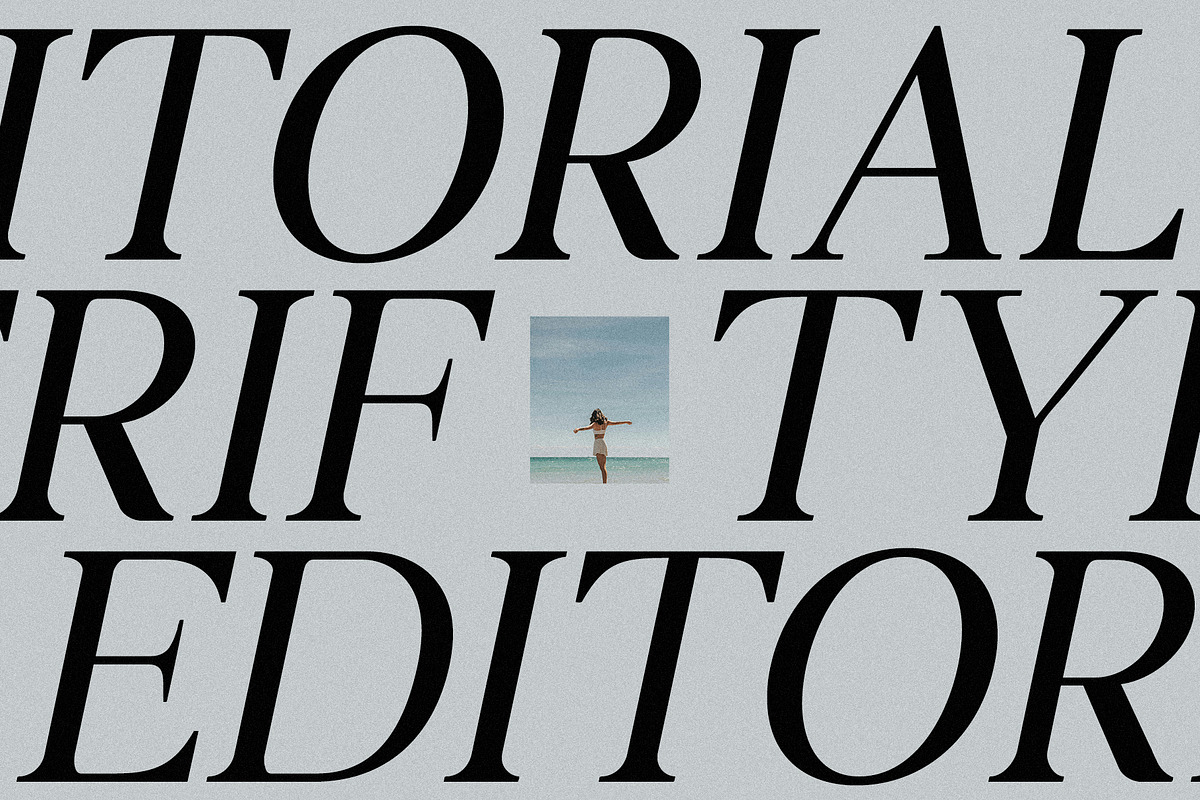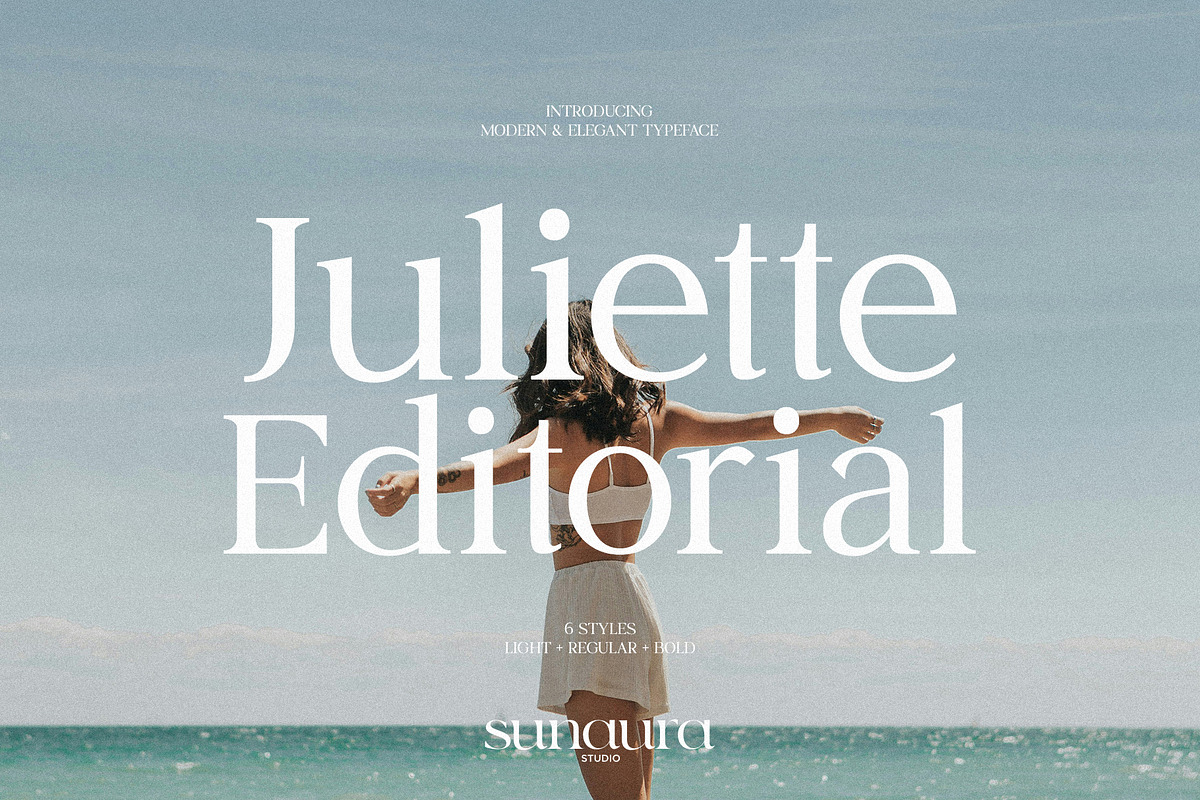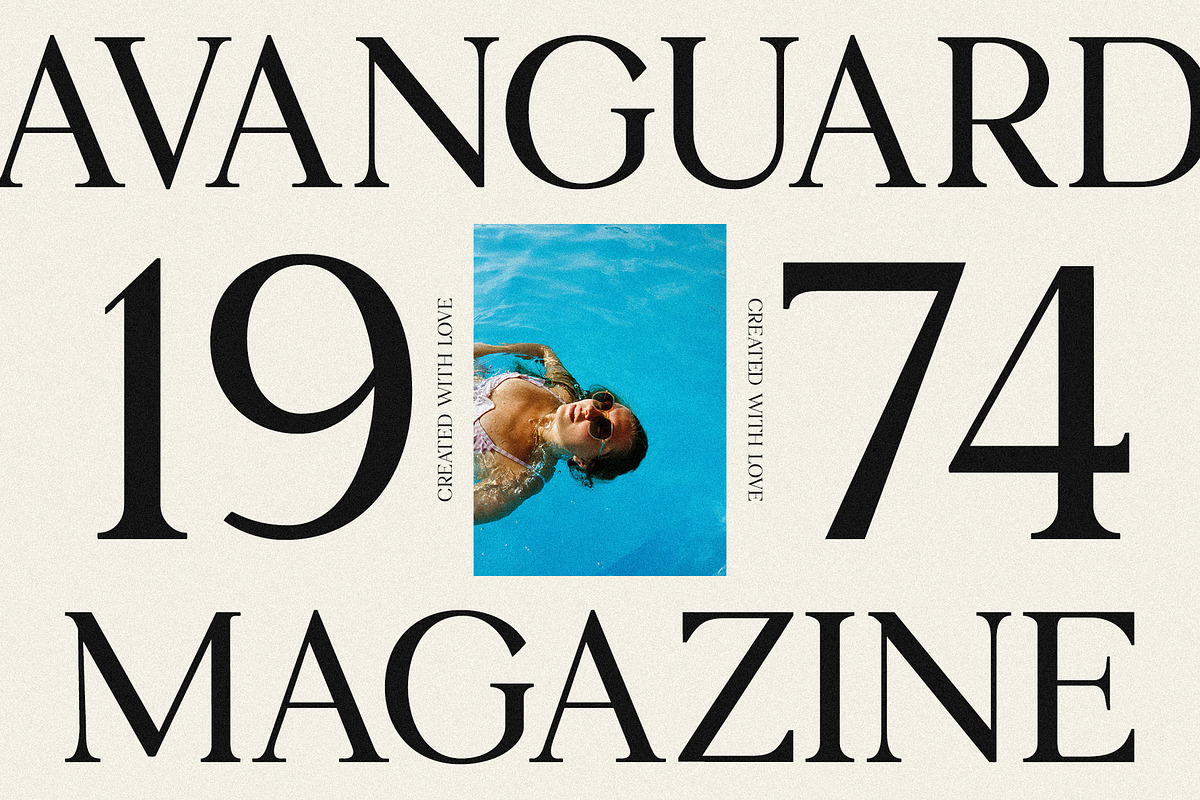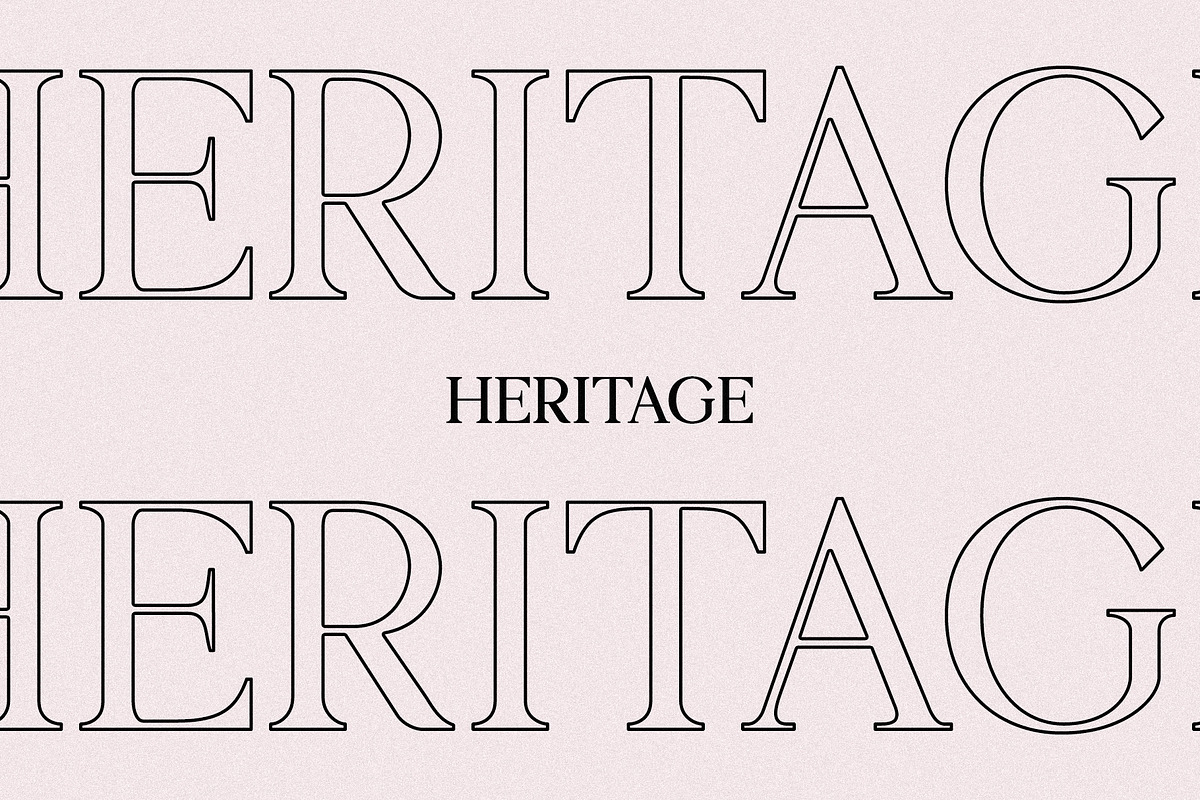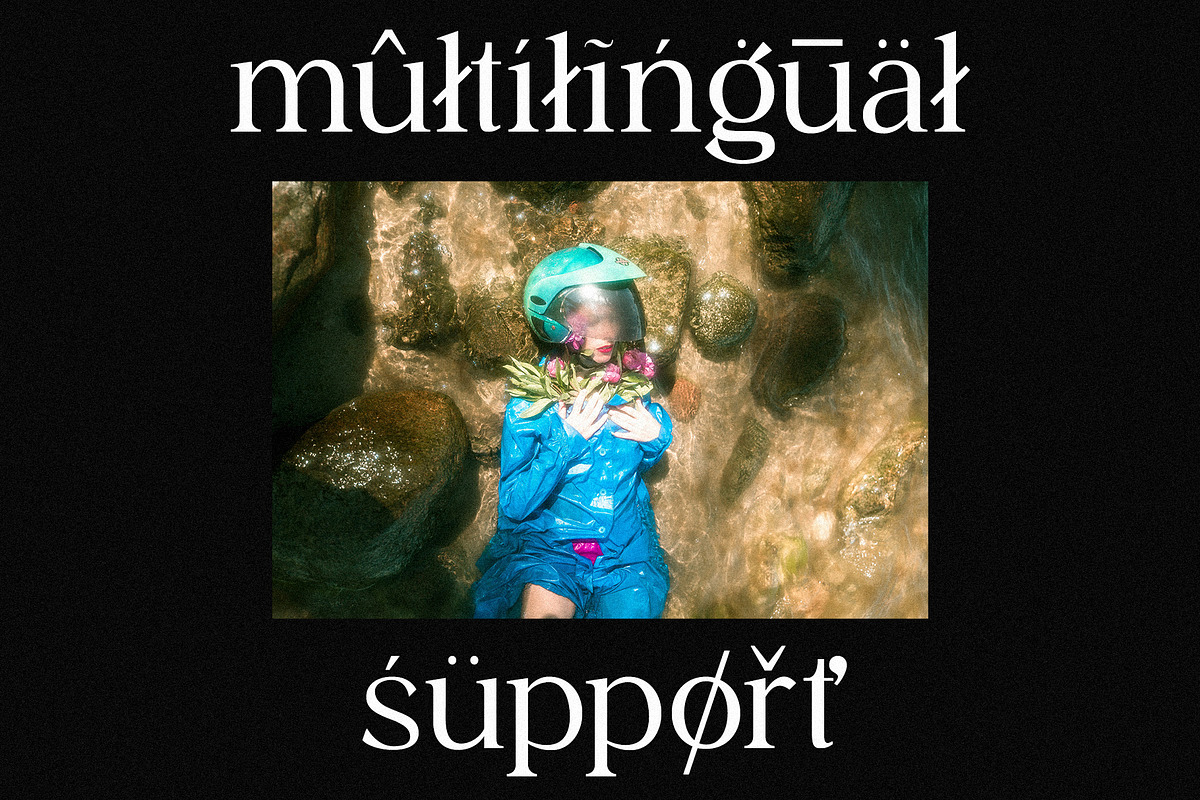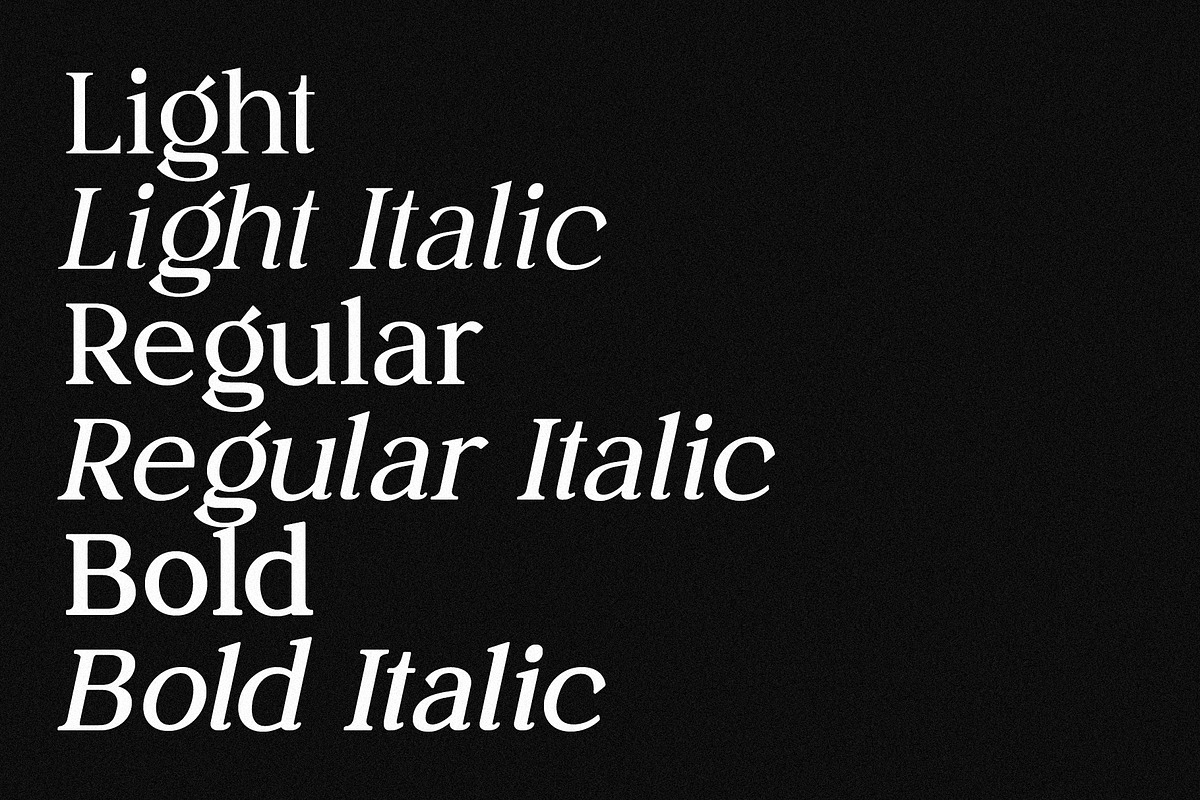
Juliette Editorial Serif (6 Fonts)
Juliette Editorial Serif is a modern serif with a timeless feel. It was designed for stories - the kind you’d find in magazines, books, and thoughtful brands that care about details. Juliette mixes elegant, editorial shapes with a soft, contemporary touch, giving it personality without feeling overdone.
The family comes with 6 fonts, making it easy to move from bold headlines to comfortable body text while keeping everything cohesive. Its balanced contrast, smooth curves, and clean details help it feel refined yet approachable. Juliette is a typeface you can rely on when you want your work to feel polished, expressive, and quietly confident.